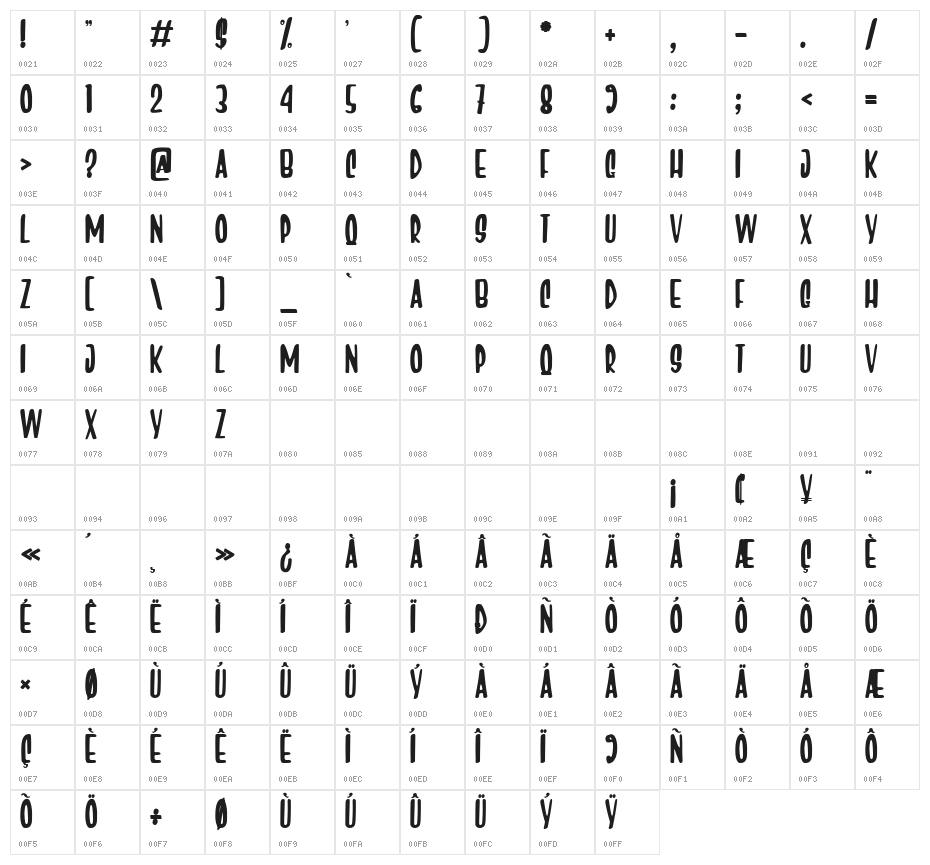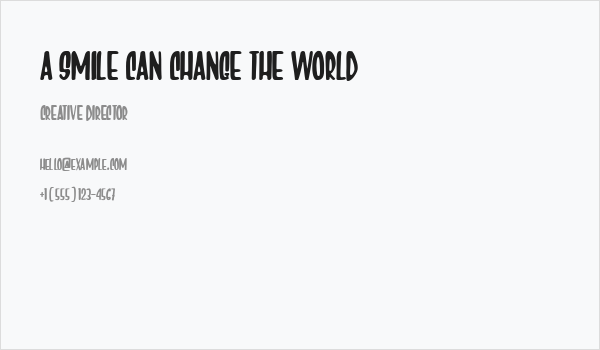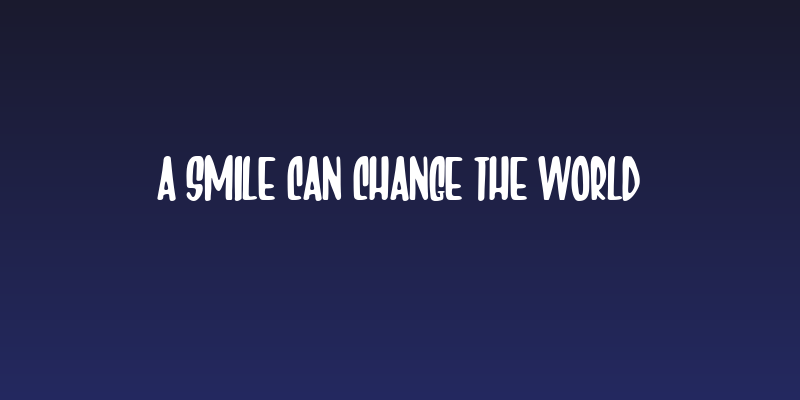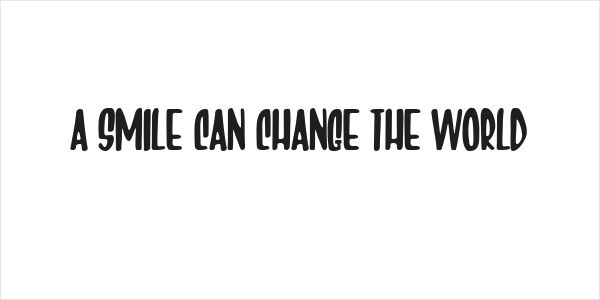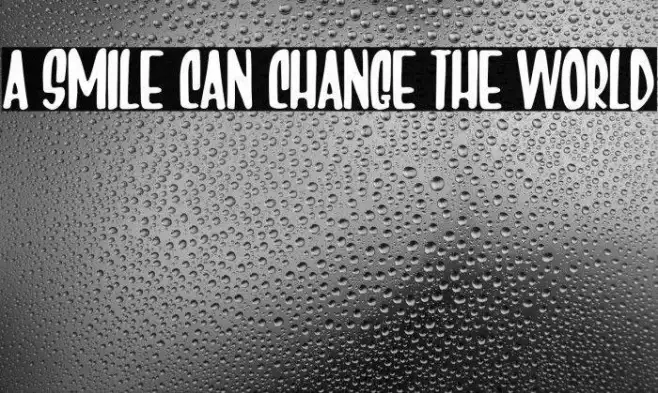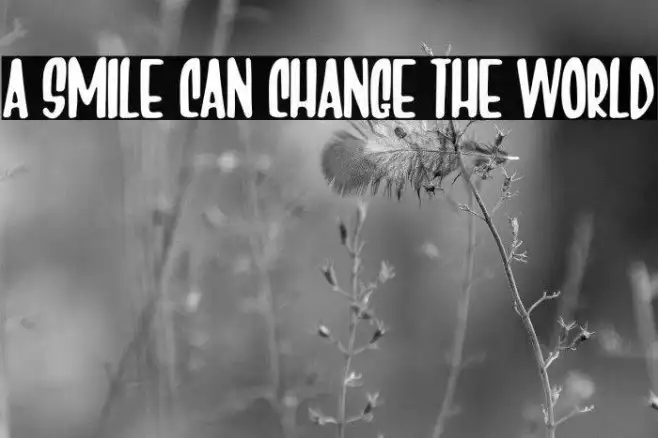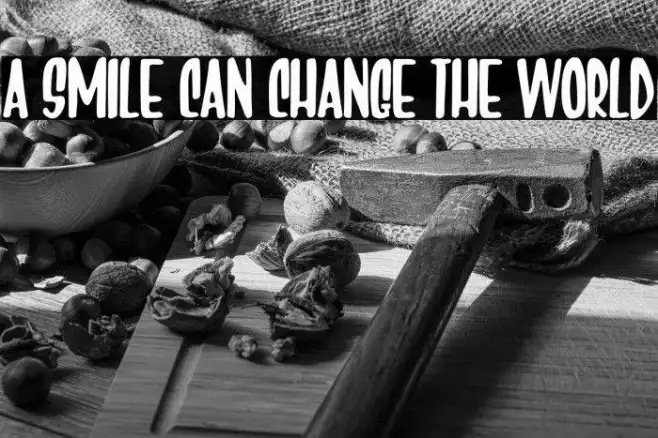
A Smile Can Change The World Font
A Smile Can Change The World Description
This font features a playful and bold design with a hand-drawn aesthetic. The characters are rounded and slightly irregular, giving it a whimsical and friendly appearance. The uppercase and lowercase letters maintain a consistent style, with a slight slant that adds to its casual charm. The numbers and special characters are designed to match the overall playful theme, making it suitable for creative and informal projects. The font's thick strokes and rounded edges make it highly legible, even at smaller sizes, while the unique character shapes add a distinctive touch to any design.
| Proposed Projects | Ideal for children's books, playful branding, greeting cards, and creative posters. |